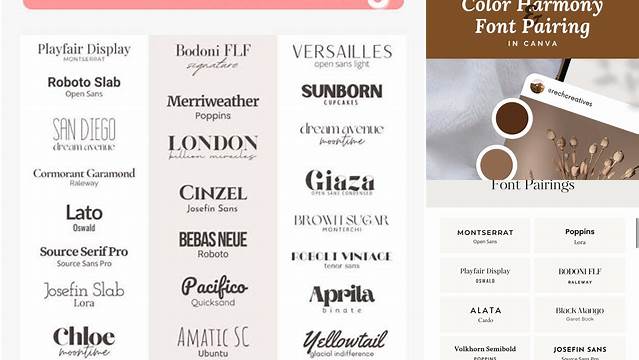
Unlocking Design Harmony: Canva Font Pairing Made Easy
Hey design enthusiasts! Ever stared at a blank canvas in Canva, paralyzed by the endless font choices? Finding the perfect Canva font pairing generator free can feel like searching for a needle in a haystack. But fear not, because we're about to dive deep into the world of font pairings, exploring how to create stunning visuals without breaking the bank. We'll uncover the secrets to harmonious typography, leveraging Canva's free tools and resources to elevate your designs from amateur to amazing. Buckle up, because we're about to transform your design game!
1. The Power of Typography: Why Font Pairing Matters
Guys, let's be real: typography is the backbone of any good design. It's the silent language that speaks to your audience, conveying your message and setting the tone. A well-chosen font pairing can instantly elevate your visuals, making them more readable, engaging, and memorable. Conversely, a mismatched pairing can create visual chaos, confusing your audience and undermining your message. Think of it like this: you wouldn't wear clashing colors, right? The same principle applies to fonts. A great Canva font pairing generator free will help you avoid these pitfalls. It's all about finding fonts that complement each other, creating a cohesive visual experience. This means considering factors like contrast, readability, and the overall style of your design. Whether you're crafting a logo, a social media post, or a presentation, the right font pairing can make all the difference. It’s not just about picking two fonts and hoping for the best; it's about understanding the relationship between them and how they work together to communicate your message effectively. Remember, your fonts are the voice of your brand, so choose wisely! You will thank me later.
1.1. Understanding Font Families and Styles
First things first: let's get familiar with the font families, shall we? These families are the backbone of your typography choices. You've got your serif fonts (think Times New Roman, with those little strokes at the end of each letter), which often convey a sense of tradition and formality. Then there are sans-serif fonts (like Arial, without those strokes), which tend to feel modern and clean. The importance of a Canva font pairing generator free begins here. There's also script fonts (like cursive), that add a touch of elegance, and display fonts, that are often bold and used for headlines and titles. Within each family, you'll find various styles, like bold, italic, and condensed. Understanding these distinctions is crucial. The key is to match your font choices to the overall style and message of your design. For instance, you wouldn't use a heavy, bold font for a delicate wedding invitation. In addition to this, each of the styles conveys a different message. If you take a bold style for instance, it conveys a sense of assertiveness, while the italic style, you might consider it elegant. Choosing fonts from different families can create contrast and visual interest, while using variations within the same family can provide consistency. Knowing how to pair these different font styles will bring out the best in a Canva font pairing generator free experience!
1.2. The Role of Contrast in Font Pairing
Contrast is the spice of typography life. It's what makes your text pop, easy to read, and visually appealing. Think of it like this: you wouldn't put white text on a white background, right? It’s the same idea. When it comes to font pairing, contrast is achieved through differences in size, weight, style, and even the fonts' overall personality. You might pair a bold, heavy font with a lighter, more delicate one. Or, you might combine a tall, condensed font with a wider, more rounded one. The most successful Canva font pairing generator free experiences use the contrast principle. Contrast isn't just about aesthetics; it's about functionality. It helps guide the reader's eye, establishing a clear visual hierarchy and directing their attention to the most important information. Headlines should stand out from body text. Captions should be distinct from the main content. By leveraging contrast, you can create a design that's not only beautiful but also highly effective at communicating your message. Remember, contrast isn’t just about making things look different; it’s about making them better.
1.3. Readability: The Cornerstone of Good Typography
At the end of the day, typography is about communication. If your text isn't readable, then it's failing its primary function. Readability is all about making sure your audience can easily understand what you're trying to say. This means considering factors like font size, line spacing, and the overall design of your layout. For body text, choose fonts that are easy on the eyes, avoid overly ornate or decorative fonts that are hard to decipher. Ensure that there's enough space between lines of text to prevent crowding. Also, be mindful of the background color and text color. Make sure they provide enough contrast for easy reading. The best Canva font pairing generator free experiences incorporate readability into the process. Remember, the goal is to create a seamless reading experience, so your audience can focus on your message, not struggle to decipher your fonts. Readability isn’t just about aesthetics; it's about respect for your audience. It’s about ensuring that your message is accessible and easily understood. When your text is readable, your design is successful!
2. Canva's Free Font Pairing Tools: Your Design Toolkit
Alright, let's get down to the nitty-gritty! Canva is a goldmine for designers, especially when it comes to free tools. Let's explore how you can leverage Canva's resources to find the perfect font pairings. A strong Canva font pairing generator free will allow you to save time and ensure your designs are well-executed.
2.1. Exploring Canva's Font Combinations Feature
Canva's built-in font combinations feature is a fantastic starting point. It’s like having a professional typographer in your pocket! Canva provides a curated selection of pre-designed font pairings, carefully chosen to complement each other. This is the simplest way to get started. You can find this feature by going into the text panel and exploring the various font options. This is a great way to learn about different font combinations and styles without overwhelming you with choices. The beauty of the feature is that they've done the hard work for you! It's a fantastic way to get inspired and understand what looks good together. By exploring these combinations, you'll develop a better sense of which fonts work well together and why. Start experimenting with different combinations, and don't be afraid to make changes. Remember, it's all about finding the perfect fit for your design. The usefulness of any Canva font pairing generator free would definitely use this tool.
2.2. Utilizing the Text Panel for Font Exploration
The Text Panel is your best friend. It's where you'll spend most of your time when designing. Once you select the 'Text' option on the Canva interface, this panel opens up a world of possibilities. Here, you can add text boxes, edit font styles, adjust sizes, and experiment with colors. It's also where you can browse and preview different fonts. Canva offers a massive library of fonts. You can filter fonts by style, and even search by name. As you browse the options, pay attention to how the fonts look together. Test different combinations for headlines and body text. This is how you'll find the perfect match for your design. Make use of the text panel to fine-tune the kerning (the space between individual letters) and leading (the space between lines of text). These details can make a big difference in readability. The text panel is the ultimate playground for exploring and creating harmonious font pairings. A good Canva font pairing generator free relies on this panel to offer the greatest versatility for your designs.
2.3. Creating Your Own Font Pairings in Canva
While Canva's pre-made combinations are great, nothing beats creating your own font pairings, especially when you have a Canva font pairing generator free. Once you've gained some familiarity with the basic principles of typography and have played around with the pre-made options, it's time to take the leap and create your own custom combinations. This is where your unique design vision comes to life. Start by identifying the style and message of your design. What feeling do you want to evoke? Choose a headline font that reflects this feeling, and then select a complementary font for your body text. Experiment with different weights, styles, and sizes. Look at how the fonts interact with each other. Test them in different layouts to see how they look. Consider using a serif font for headlines and a sans-serif font for body text or vice versa. This contrast can create visual interest and improve readability. Don't be afraid to get creative and try different things. The key is to experiment, learn, and find what works best for your specific design needs. Create your own library of favorite pairings! This is the ultimate proof of any Canva font pairing generator free’s power.
3. Matching Fonts to Your Brand: A Guide
Your brand is more than just a logo; it's a feeling, a personality, a promise. Your fonts play a huge role in communicating that. Let's talk about how to match your fonts to your brand's identity. A good Canva font pairing generator free needs to take your brand into consideration.
3.1. Understanding Your Brand's Personality
Before you even think about fonts, you need to understand your brand's personality. What are its core values? Is it modern, classic, playful, or serious? Is it high-end or budget-friendly? Is it aimed at kids, adults, or professionals? Knowing your brand's personality is the foundation for all your design choices, including your font pairings. Does your brand aim to be bold and exciting? Perhaps a strong, sans-serif font would be a good fit. Does your brand represent elegance and tradition? A serif font might be more appropriate. It’s all about aligning your design choices with your brand's core values and identity. Take the time to really understand what your brand is all about. A well-defined brand personality will guide your font choices and help you create designs that resonate with your target audience. Make this your guiding principle when designing, and you will begin to see the magic of your Canva font pairing generator free.
3.2. Choosing Fonts That Reflect Your Brand's Values
Once you know your brand's personality, it's time to choose fonts that reflect those values. This is where the fun begins. Think about the different qualities you want to convey. Does your brand promote innovation and modernity? Consider using clean, geometric sans-serif fonts. Is your brand about trustworthiness and reliability? Classic, serif fonts could be the way to go. Does your brand seek to be playful and fun? Consider using quirky or handwritten fonts. Always think about the overall message that the fonts will convey. Be sure to check your font choices against your brand guidelines (if you have them). Consistency is key! Choosing fonts that align with your brand's values is a critical step in creating a strong brand identity. A Canva font pairing generator free won't make these decisions for you, but it will definitely make the process easier.
3.3. Maintaining Brand Consistency in Typography
Consistency is key when it comes to branding. This means using the same fonts across all your marketing materials, from your website to your social media posts. The more consistent you are, the more recognizable your brand becomes. Create a brand style guide that outlines your preferred fonts, font sizes, and how to use them. This will ensure that everyone on your team uses the same fonts, and that your brand messaging is consistent across all channels. Sticking to your chosen fonts helps build brand recognition and reinforces your message. If you're struggling with brand consistency, consider implementing templates for common marketing materials, such as social media posts and presentations. This will simplify the process. Embrace consistency for your business. Keep your fonts, and therefore your brand, fresh and recognizable. A Canva font pairing generator free is a good tool, but consistency is the key to success.
4. Mastering Font Pairing Techniques: Advanced Tips
Ready to level up your font pairing skills? Let's dive into some advanced techniques. With a Canva font pairing generator free at your disposal, you'll be creating design masterpieces in no time.
4.1. Leveraging Font Contrast: A Deep Dive
We touched on font contrast earlier, but let's dig deeper. Beyond size and weight, think about how the fonts' personalities contrast each other. A sleek, modern sans-serif font can pair wonderfully with a classic, serif font. If you want to introduce a more striking contrast, choose fonts from different families that have distinct shapes and styles. Think about the weight of your fonts. Heavier, bolder fonts tend to draw attention, while lighter fonts provide a subtler touch. The key is to use contrast intentionally. Don't just mix and match fonts randomly. Think about what message you want to convey. The most effective contrast creates a sense of visual interest and allows different elements to stand out. This is where a Canva font pairing generator free becomes invaluable.
4.2. Using Font Hierarchy to Guide the Eye
Font hierarchy is all about guiding the reader's eye through your design. Use different font sizes, weights, and styles to create a clear visual order. The most important information should be the largest and boldest. Subheadings can be smaller and less bold. The body text should be the smallest, most readable font. This creates a visual flow that makes your design easy to scan and understand. A well-structured font hierarchy helps your audience to quickly grasp the key messages. To create an effective hierarchy, think about what you want your audience to read first, second, and so on. A Canva font pairing generator free can help you visualize your choices, but it is up to you to take advantage of its power.
4.3. The Art of Combining Different Font Styles
Combining different font styles can create some truly eye-catching designs. Explore different font weights and styles within the same family. You might use a bold version of a font for headlines and a regular weight for body text. If you want to inject a more adventurous touch, experiment with mixing different font families. Using a serif font for headlines and a sans-serif font for body text is a classic pairing. Don't be afraid to mix and match different styles, but make sure that your choices still feel harmonious and cohesive. The best way to find out what works is to experiment. A Canva font pairing generator free can help you in this endeavor, as long as you know how to use it!
5. Free Resources for Font Pairing Inspiration
Looking for some inspiration? There are tons of free resources out there to help you find the perfect font pairings! Let's explore.
5.1. Exploring Online Font Pairing Generators
While we're focusing on Canva, let's not forget the wealth of online Canva font pairing generator free options out there. These generators can suggest combinations based on various criteria, such as style and mood. Many of these tools allow you to preview your text in different font pairings, giving you a clear idea of how the fonts will look together. Using online font pairing generators can be a great way to get ideas and explore different options. Don't limit yourself to one source. Use multiple tools and resources to broaden your horizons. Experiment and see what works best for you! A good Canva font pairing generator free will offer great ideas, but exploring several options is crucial.
5.2. Following Design Blogs and Websites
Design blogs and websites are a great place to find inspiration and learn more about typography. They're often full of examples of great font pairings, as well as tips and tricks for creating your own. Many design blogs regularly publish articles about font pairings, showcasing successful combinations and providing valuable insights. Design websites are also a good place to see examples of designs using a variety of fonts. Following these blogs and websites can help you stay up-to-date on the latest design trends, and find inspiration for your own projects. Learn from the experts! A Canva font pairing generator free can offer some ideas, but these blogs and websites are where the real knowledge lies.
5.3. Analyzing Designs You Admire
One of the best ways to learn about font pairing is to analyze the designs you admire. Take a look at the websites, logos, and other designs that you find visually appealing. What fonts are they using? How are they paired? What is the overall feel of the design? By deconstructing successful designs, you can start to understand how font pairings work in practice. You'll learn to recognize the different techniques used to create harmonious typography. You'll gain insights into how to use font pairings to evoke certain feelings and emotions. Make an effort to study the best designs you see online and in print. Use these as inspiration for your own design projects! A Canva font pairing generator free will give you the tools, but understanding the art of font pairing starts with analysis.
6. Troubleshooting Common Font Pairing Issues
Even the best designers run into problems sometimes. Let's troubleshoot some common font pairing issues. A helpful Canva font pairing generator free will have some built-in troubleshooting, but it's also important to understand common errors.
6.1. Avoiding Clashing Fonts
One of the most common mistakes is using fonts that clash with each other. This can create visual chaos and make your design difficult to read. So, how do you avoid clashing fonts? First, look for fonts that have distinct personalities. Avoid combining fonts that are too similar. You can also try using fonts from different categories (e.g., a serif and a sans-serif). Before you use them, try previewing your pairings and see how they look. Trust your instincts! An experienced Canva font pairing generator free can help, but your eye is important here.
6.2. Ensuring Readability: Font Size and Spacing
Readability is paramount. Make sure that your fonts are easy to read. This is especially important for body text. Choose a font size that's comfortable for your audience. Ensure that there's enough space between lines of text (leading). Also, be mindful of the space between letters (kerning) and words. These seemingly small details can make a big difference in readability. If your text is hard to read, your audience will quickly lose interest. A proper use of Canva font pairing generator free must take readability into consideration.
6.3. Balancing Font Weights and Styles
Font weight and style can dramatically impact the visual appearance of your design. It's all about balancing these elements. Avoid using too many different font weights or styles, as this can create visual clutter. Use bold fonts sparingly, and make sure that your styles are consistent. Sometimes, it's best to keep things simple, especially when starting out. A good Canva font pairing generator free provides tools for you to play with these options.
7. Canva Font Pairing Beyond the Basics
Ready to go beyond the basics? Let's explore some more advanced techniques. A well-designed Canva font pairing generator free may come with some of these features, but it is important to know them anyway.
7.1. Font Pairing for Different Design Projects
Different design projects require different font pairings. Think about what you're creating. For a logo, you might want a bold, distinctive font pairing. For a presentation, you might need something that's easy to read and professional. For a social media post, you could be more adventurous, using fonts that grab attention. Tailor your font pairings to the specific needs of your project. This will help you achieve the desired impact. A Canva font pairing generator free can help, but knowing your project's needs is essential.
7.2. Using Font Pairings in Presentations
Presentations require fonts that are both readable and visually appealing. Stick to simple, clean fonts for body text. Use a slightly bolder font for headlines. Also, be sure to maintain a consistent font hierarchy throughout your presentation. The key is to ensure that your audience can easily read and understand your content. A Canva font pairing generator free can help you find fonts that will work well in your presentations.
7.3. Font Pairing for Social Media Graphics
Social media graphics need to be eye-catching and attention-grabbing. Bold fonts often work well for headlines and captions. Be sure to choose fonts that are optimized for digital screens, and that are legible at smaller sizes. Don't be afraid to experiment with different font styles. But make sure that your fonts align with your brand's identity. A Canva font pairing generator free is a great tool for creating social media graphics.
8. The Future of Canva Font Pairing
What does the future hold for font pairing in Canva? Let's take a peek at what might be on the horizon.
8.1. AI-Powered Font Suggestions
Artificial intelligence is rapidly changing the design world. We might see AI-powered font suggestions in Canva in the future. Imagine an AI tool that analyzes your design and suggests the perfect font pairings, tailored to your brand and message. This could revolutionize the way people approach typography, making it easier and more accessible than ever before. A Canva font pairing generator free already offers some features, but AI could take it to the next level.
8.2. Enhanced Font Customization Options
As Canva evolves, we can expect even more customization options for fonts. This could include the ability to create your own custom fonts within the platform. Imagine adjusting the weight, style, and spacing of fonts to create a truly unique look. Such options would give designers even more control over their typography. A Canva font pairing generator free today would get even better with enhanced customization options.
8.3. Integration with Advanced Typography Tools
Canva could potentially integrate with advanced typography tools, giving users access to even more features. This could include features such as advanced kerning, ligatures, and font variations. With these tools, designers could create even more complex and sophisticated designs. In this event, a Canva font pairing generator free will change to better suit advanced typography tools.
9. Conclusion: Unleash Your Inner Typographer with Canva
There you have it! You're now armed with the knowledge and tools to conquer the world of font pairing in Canva. Remember, finding the perfect combination takes practice and experimentation. Don't be afraid to try different things, to learn from your mistakes, and to let your creativity flow. Embrace the power of typography and watch your designs transform from ordinary to extraordinary.
Now go forth and create some amazing designs! The key is to understand the principles, to experiment, and to have fun. With Canva and a good Canva font pairing generator free as your allies, the possibilities are endless! Happy designing!